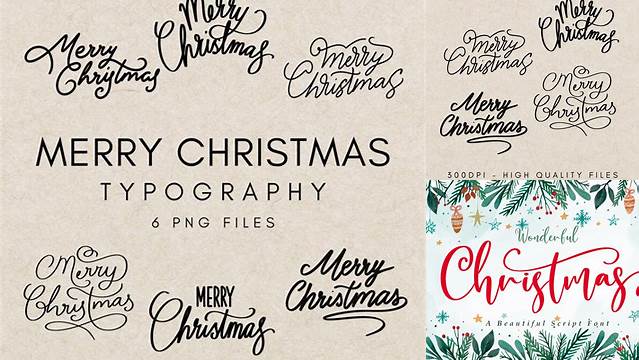
Free Merry Christmas Script Fonts: Download Guide
Hey guys, are you ready to sprinkle some holiday magic onto your designs? Christmas is just around the corner, and what better way to spread the cheer than with a merry Christmas script font? These fonts can transform your projects, making them look festive, friendly, and utterly irresistible. Whether you're crafting greeting cards, sprucing up your website, or designing social media graphics, the right font can set the perfect tone. And the best part? There are tons of free Merry Christmas script fonts out there that are ready for you to download and use. This article is your ultimate guide to finding, using, and loving these delightful fonts. So, let’s dive in and discover how you can add a touch of elegance and joy to your holiday creations!
What Makes a Great Merry Christmas Script Font?
So, what exactly should you look for in a Merry Christmas script font? Not all fonts are created equal, and choosing the right one can significantly impact your design's overall appeal. Here’s what to keep in mind when searching for the perfect font:
- Legibility: First and foremost, a good script font needs to be readable. While decorative fonts are beautiful, they shouldn’t come at the expense of clarity. Choose fonts that are easy to read, even at smaller sizes. Think about the context. Is it for a greeting card, or a large banner? The level of detail you can get away with will depend on the application.
- Character Variety: A wide range of characters, including different letter styles and special characters, can add depth and versatility to your designs. Look for fonts that include ligatures (where two or more letters are joined to create a unique character), as these can give your text a more flowing and natural look. A font with stylistic alternates can also offer more creative options, like swashes. These can really make your design pop.
- Personality: Script fonts come with various personalities. Some are elegant and formal, while others are playful and casual. Consider the overall tone of your project and choose a font that complements it. A whimsical font is perfect for kids' projects, while a more refined one might suit a corporate holiday card.
- Kerning and Spacing: Good kerning and spacing are crucial for any font. Kerning refers to the spacing between individual letters, and poor kerning can make text look cramped or awkward. Check the font's kerning, especially when used in titles or short phrases. Make sure the characters fit together nicely and are spaced appropriately.
By keeping these elements in mind, you'll be able to find a Merry Christmas script font that not only looks beautiful but also enhances the message you want to convey. Remember, the best font will depend on your specific needs, so don’t be afraid to try out a few options to see what works best for you. Get creative, and have fun with it! Don't be afraid to experiment, and don’t be afraid to mix and match fonts for truly unique and memorable designs. This will add personality and make your project stand out from the crowd.
- Font Squirrel: Font Squirrel is a great resource for finding high-quality, free fonts. They have a curated collection of fonts that are free for commercial use, which is a bonus. They also provide detailed information about each font, including its license and usage guidelines.
- BeFonts: BeFonts is another excellent platform to discover a wide variety of fonts, including a great selection of script fonts perfect for Christmas. They offer a user-friendly interface, making it easy to browse and download fonts quickly. Check licensing terms carefully, as these can vary.